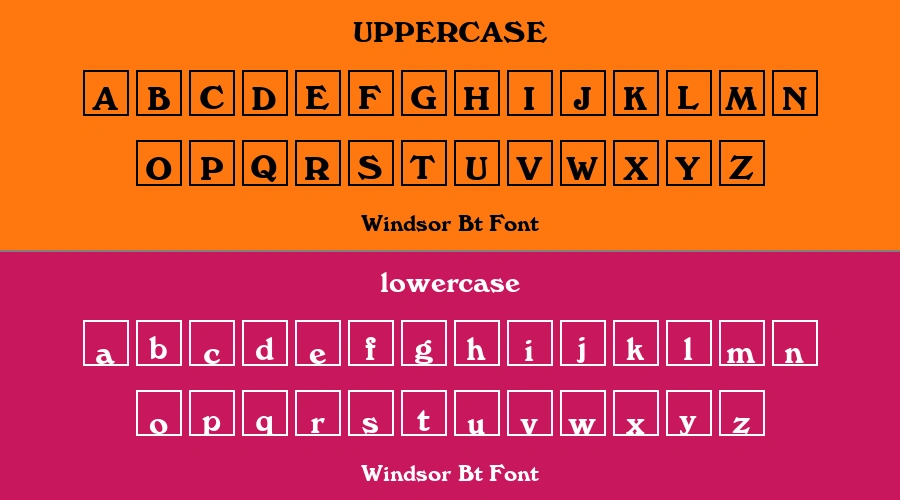
About Windsor Bt Font
Windsor Bt Font embodies typographic excellence through its masterful combination of flourished entries and flexibility. Created for exhibition design, this typeface delivers exceptional elegance and professional authority across all applications. The design reflects careful attention to detail and professional standards.
Advanced capabilities include distinctive graceful transitions and versatile brand signatures, giving designers creative control. When used in digital platforms, Windsor Bt Font exhibits remarkable file optimization. The harmonious balance between terminal angle and institutional trust sets this typeface apart.